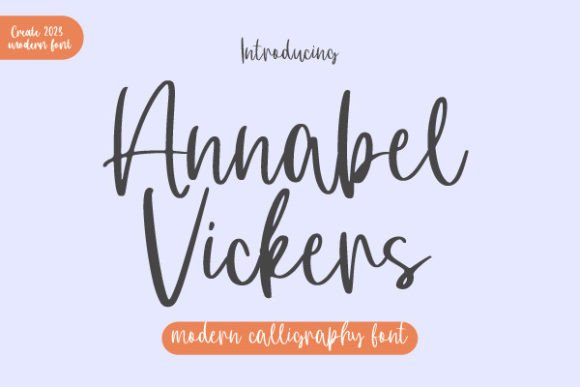
The Annabel Vickers Font: A Timeless, Elegant Choice for Your Designs
Annabel Vickers is a flowing handwritten font that exudes an elegant touch, making it perfect for a wide range of projects. Its incredibly distinct and timeless style has won my heart, and I’m excited to share my experience with you.
An Honest Review: What I Love and What to Keep in Mind
- 💫 Elegant, flowing script that’s perfect for titles, headings, and quotes
- 🎨 Versatile and adaptable to various design styles and industries
- 🔥 Supports OpenType features, glyphs, and stylistic alternates for added creativity
- ⚠️ May not be the best choice for body text or lengthy paragraphs due to its script nature
- 🤔 Some users might find the font a bit too ornate for certain projects
- Experiment with OpenType features, such as swashes and stylistic alternates, to add a personal touch
- Exploring the available glyphs, swashes, and stylistic alternates to enhance your design
A Glimpse into the Designer’s Inspiration
While the true story behind Annabel Vickers’ creation remains a mystery, it’s easy to imagine that the designer was inspired by the beauty of handwritten scripts and the elegance of traditional calligraphy. Perhaps they aimed to create a font that would evoke a sense of sophistication and refinement, while still being approachable and friendly.
Q: What type of projects is Annabel Vickers best suited for?
A: Annabel Vickers excels in projects that require an elegant, sophisticated touch, such as branding, packaging, and editorial design.
Q: Can I use Annabel Vickers for body text or lengthy paragraphs?
A: While Annabel Vickers is highly legible, its script nature makes it more suitable for titles, headings, and short paragraphs.
Q: Does Annabel Vickers support OpenType features and glyphs?
A: Yes, Annabel Vickers supports OpenType features, glyphs, and stylistic alternates, allowing you to add creative flourishes to your designs.